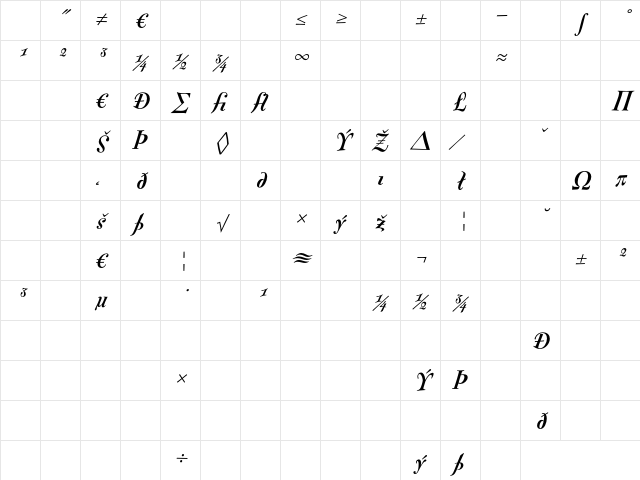
Complete Fontesque-BoldItalicExpert Regular glyph index. Displaying only characters natively supported by Fontesque-BoldItalicExpert Regular font.
Fontesque-BoldItalicExpert is a composed and adaptable typeface that performs quietly and consistently across a wide range of design contexts. The slanted form adds forward momentum and visual energy. Its bold stroke weight gives it real presence on the page.